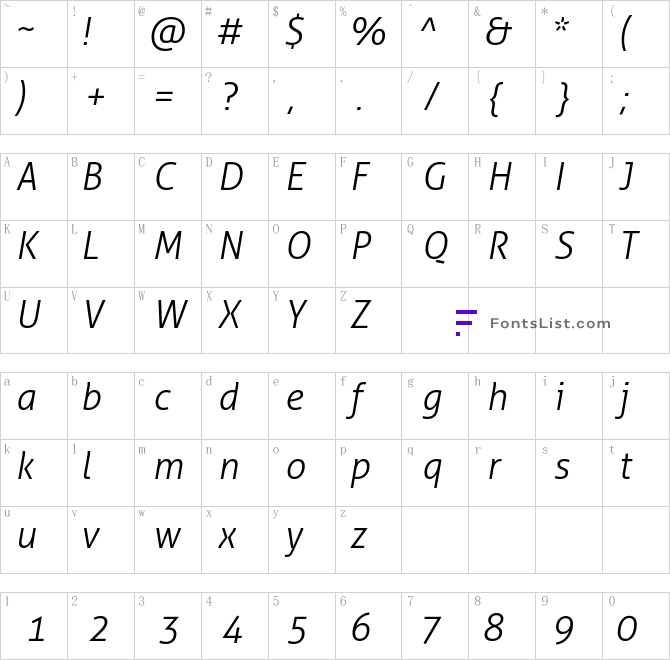
- Font Name:Aller Light
- Subfamily:DaltonMaagLtd: Aller Light Italic: 2008
- Full Name:Aller Light Italic
Aller-Light-Italic.ttf is a very beautiful artistic font, Aller-Light-Italic.ttf is widely used in the design and printing of various books and pictures,Aller-Light-Italic.ttf has a strong visual impact,Aller-Light-Italic.ttf is a commonly used font in newspapers, magazines and books, and is used in posters, e-commerce Poster design, store design, logo design, font design and other fields.Aller-Light-Italic.